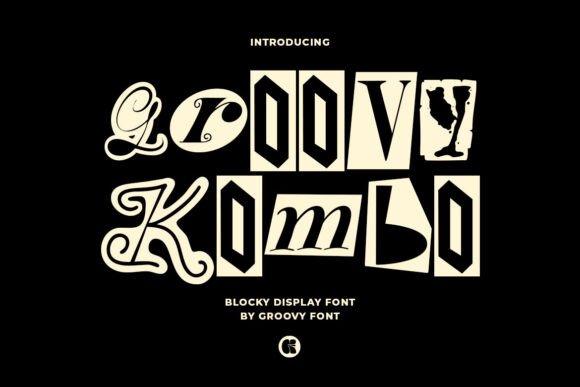
Introducing Groovy Kombo Font: The Ultimate Bold and Striking Block Display Font
Are you tired of using the same old fonts in your designs? Look no further than Groovy Kombo Font, a bold and striking block display font that combines various styles of block letters to create a unique and visually dynamic typeface. In this article, we’ll dive into the features and benefits of Groovy Kombo, and explore how it can elevate your designs to the next level.
What is Groovy Kombo Font?
Groovy Kombo Font is a bold and striking block display font that combines various styles of block letters. This unique font offers a mix of different block letter designs, creating a visually dynamic and versatile typeface. With its eclectic and eye-catching design, Groovy Kombo is perfect for designers looking to make a statement or add a modern edge to their projects.
Key Features of Groovy Kombo Font
- Unique and Versatile Design: Groovy Kombo combines various styles of block letters to create a one-of-a-kind typeface that’s perfect for making a statement.
- Bold and Striking: With its bold and striking design, Groovy Kombo is sure to grab attention and add a modern edge to your projects.
- Eclectic and Eye-Catching: The eclectic design of Groovy Kombo makes it perfect for designers looking to add a fresh twist to their projects.
- High-Quality Design: Groovy Kombo is designed with high-quality and precision, ensuring that it looks great in any design.
Benefits of Using Groovy Kombo Font
So why choose Groovy Kombo Font for your designs? Here are just a few benefits of using this amazing font:
- Adds a Modern Edge: Groovy Kombo adds a modern edge to your designs, making it perfect for projects that require a fresh and contemporary look.
- Grabs Attention: With its bold and striking design, Groovy Kombo is sure to grab attention and make your designs stand out.
- Versatile: Groovy Kombo is a versatile font that can be used in a variety of designs, from posters and flyers to logos and branding.
Tips and Tricks for Using Groovy Kombo Font
Here are a few tips and tricks for getting the most out of Groovy Kombo Font:
- Experiment with Different Sizes: Experiment with different sizes and styles to find the perfect look for your design.
- Pair with Other Fonts: Pair Groovy Kombo with other fonts to create a unique and visually dynamic design.
- Use in Combination with Images: Use Groovy Kombo in combination with images to add depth and interest to your design.
- Make it Bold: Don’t be afraid to make Groovy Kombo bold and eye-catching – it’s designed to grab attention!
In conclusion, Groovy Kombo Font is a bold and striking block display font that combines various styles of block letters to create a unique and visually dynamic typeface. With its eclectic and eye-catching design, Groovy Kombo is perfect for designers looking to make a statement or add a modern edge to their projects. Whether you’re designing a poster, flyer, or logo, Groovy Kombo is the perfect choice. So why wait? Download Groovy Kombo Font today and take your designs to the next level!
- What is Groovy Kombo Font?: Groovy Kombo Font is a bold and striking block display font that combines various styles of block letters.